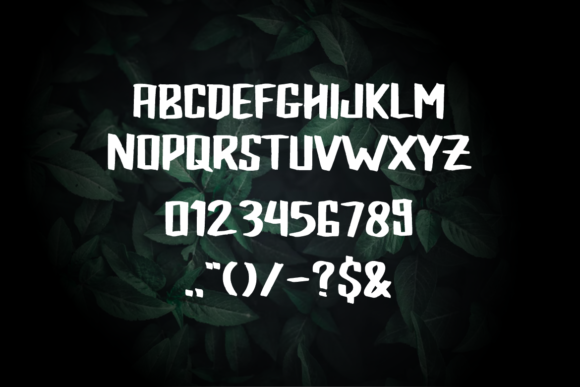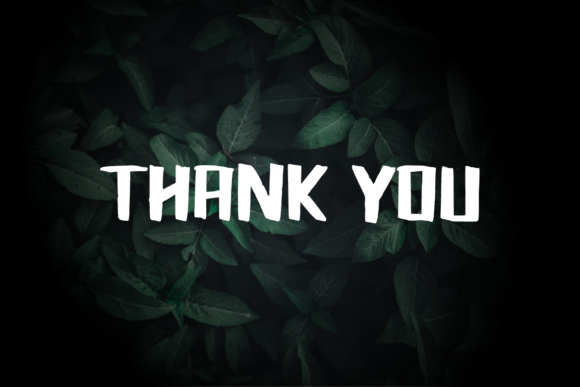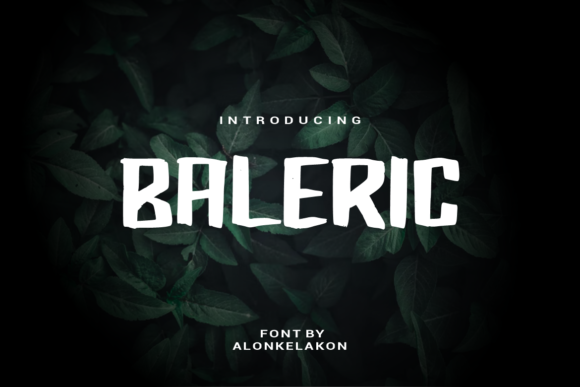
Baleric Font: The Perfect Addition to Your Casual Design Projects
Are you a designer or crafter looking for a font that can add a touch of coolness and casualness to your design projects? Look no further than the Baleric font. This paint-brushed display font is perfect for creating informal designs that require a natural and simple style. In this article, we’ll take a closer look at the Baleric font, its features, and how you can use it to elevate your design projects.
What is Baleric Font?
Baleric is a display font that features a unique, paint-brushed style. The font has a casual and relaxed feel to it, making it perfect for designs that require a laid-back vibe. The natural and simple style of Baleric font makes it versatile and easy to use, allowing you to pair it with a variety of design elements.
Key Features of Baleric Font
Here are some of the key features that make Baleric font a great addition to your design projects:
• Cool and Casual Style: Baleric font has a cool and casual style that is perfect for informal design projects. The font’s relaxed feel makes it ideal for designs that require a laid-back vibe.
• Paint-Brushed Texture: The paint-brushed texture of Baleric font gives it a unique and organic feel. The texture adds a touch of realism to your designs, making them look more authentic.
• Natural and Simple Style: The natural and simple style of Baleric font makes it easy to use and versatile. You can pair it with a variety of design elements, from bold graphics to minimalist backgrounds.
• Display Font: Baleric font is a display font, making it perfect for headlines, titles, and other prominent design elements.
How to Use Baleric Font in Your Design Projects
Baleric font is perfect for a variety of design projects, including:
• Posters and Flyers: Use Baleric font to create eye-catching posters and flyers for events, promotions, and other marketing campaigns.
• Social Media Graphics: Add a touch of coolness to your social media graphics with Baleric font. Use it to create engaging headlines and titles that grab attention.
• Logos and Branding: Baleric font can be used to create unique and memorable logos and branding elements. The font’s casual style makes it perfect for lifestyle brands, startups, and small businesses.
• Crafting and DIY Projects: If you’re a crafter or DIY enthusiast, Baleric font can be used to add a personal touch to your projects. Use it to create titles, headings, and other design elements for your handmade products.
Tips for Using Baleric Font Effectively
Here are some tips for using Baleric font effectively in your design projects:
• Pair it with Contrasting Fonts: Pair Baleric font with contrasting fonts to create visual interest and hierarchy in your designs.
• Use it for Headlines and Titles: Use Baleric font for headlines and titles to grab attention and create a lasting impression.
• Experiment with Colors: Experiment with different colors to find the perfect match for your design project. Baleric font looks great with bold and bright colors.
• Keep it Simple: Keep your design simple and clean to let Baleric font shine. Avoid clutter and excessive design elements that can distract from the font.
In conclusion, Baleric font is a cool, casual, and paint-brushed display font that is perfect for informal design projects. Its natural and simple style makes it versatile and easy to use, allowing you to pair it with a variety of design elements. With its unique features and flexibility, Baleric font is a great addition to any designer’s or crafter’s toolkit.